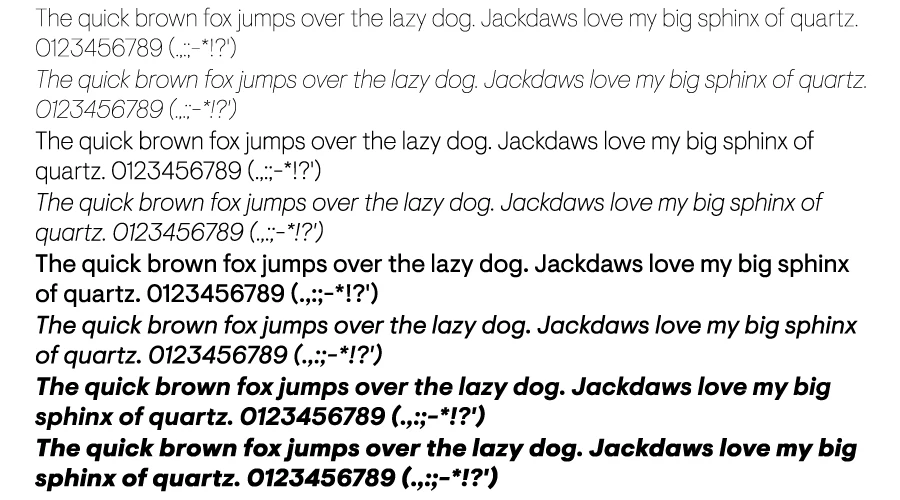
Visuelt is a sans serif typeface font. Anthony Sheret and Edd Harrington designed this font. Visuelt published through Colophon Foundry in 2014. This is a very unique and amazing font. This font has 7 weights and each weight has 2 styles that means, Visuelt has a total of 14 styles. This font was designed as a bespoke typeface for the 2013 and 2014 identity of design conference which is also known as National Norwegian Design Awards.
| Style | Sans Serif |
| Author | Anthony Sheret and Edd Harrington |
What type of font is Visuelt?
Ans: Visuelt is a sans serif font designed by Anthony Sheret and Edd Harrington.
Is there any font similar to Visuelt in Google Fonts?
Ans: Noto Sans JP is mostly similar to Visuelt in Google fonts.